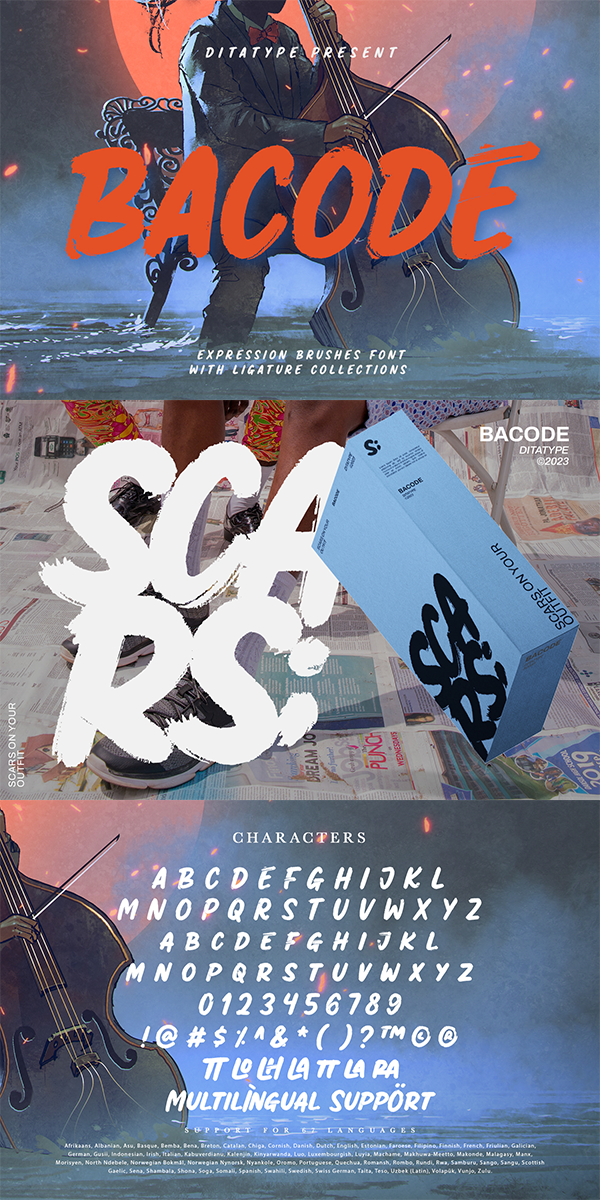
Bacode Font
About Bacode
Bacode is a font type to produce manual brush-looking displays to show natural, casual, informal impressions to make people feel close to the brand or design displayed. Its letter proportions are equal, yet high in contrast to be more visually attractive. However, brush fonts are less legible in lengthy texts. As a result, they are more suitable to apply for short texts. You can also enjoy the available features here.
Bacode fits best for various design projects, such as brandings, posters, banners, headings, magazine covers, quotes, printed products, merchandise, social media, etc. Find out more ways to use this font by taking a look at the font preview.